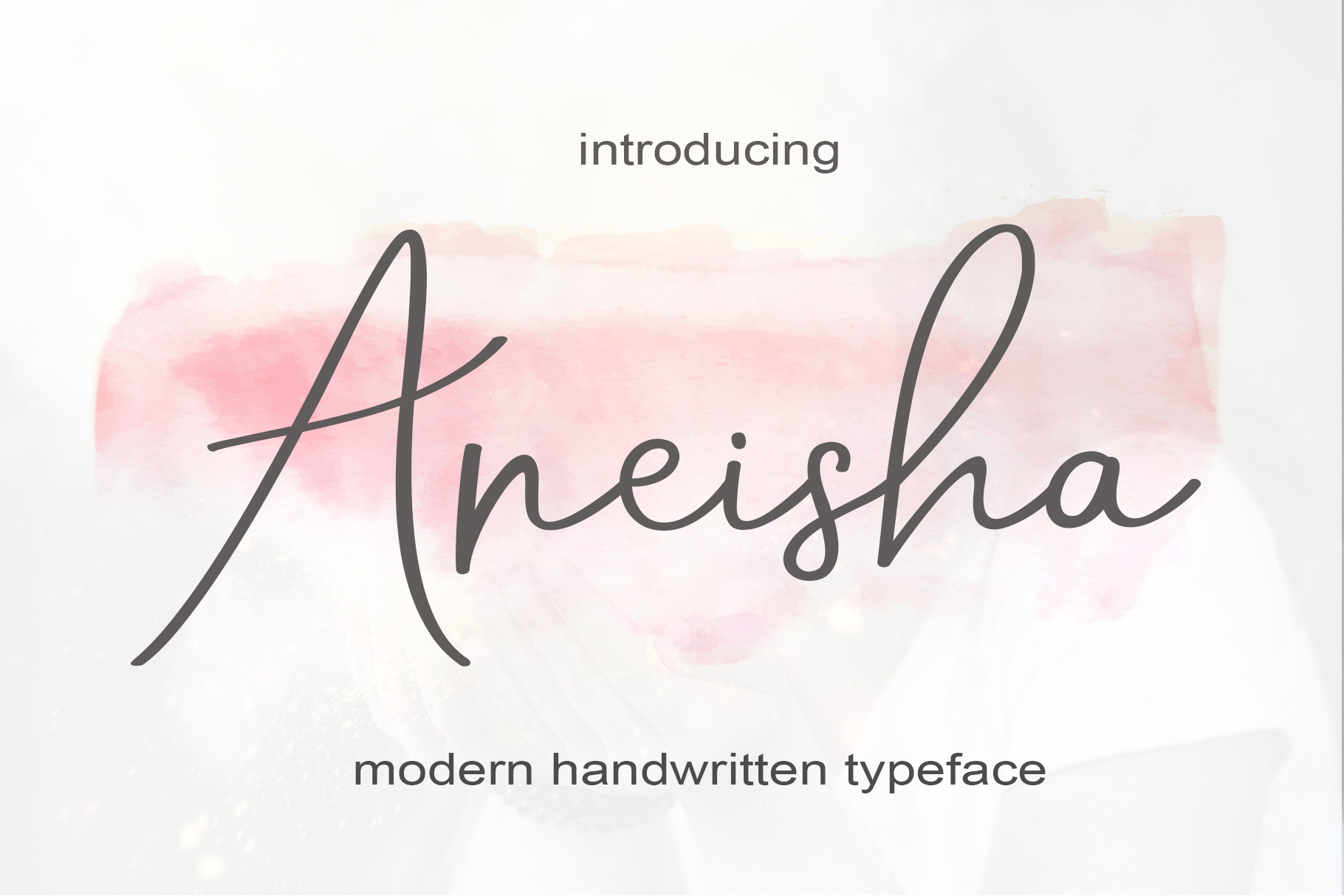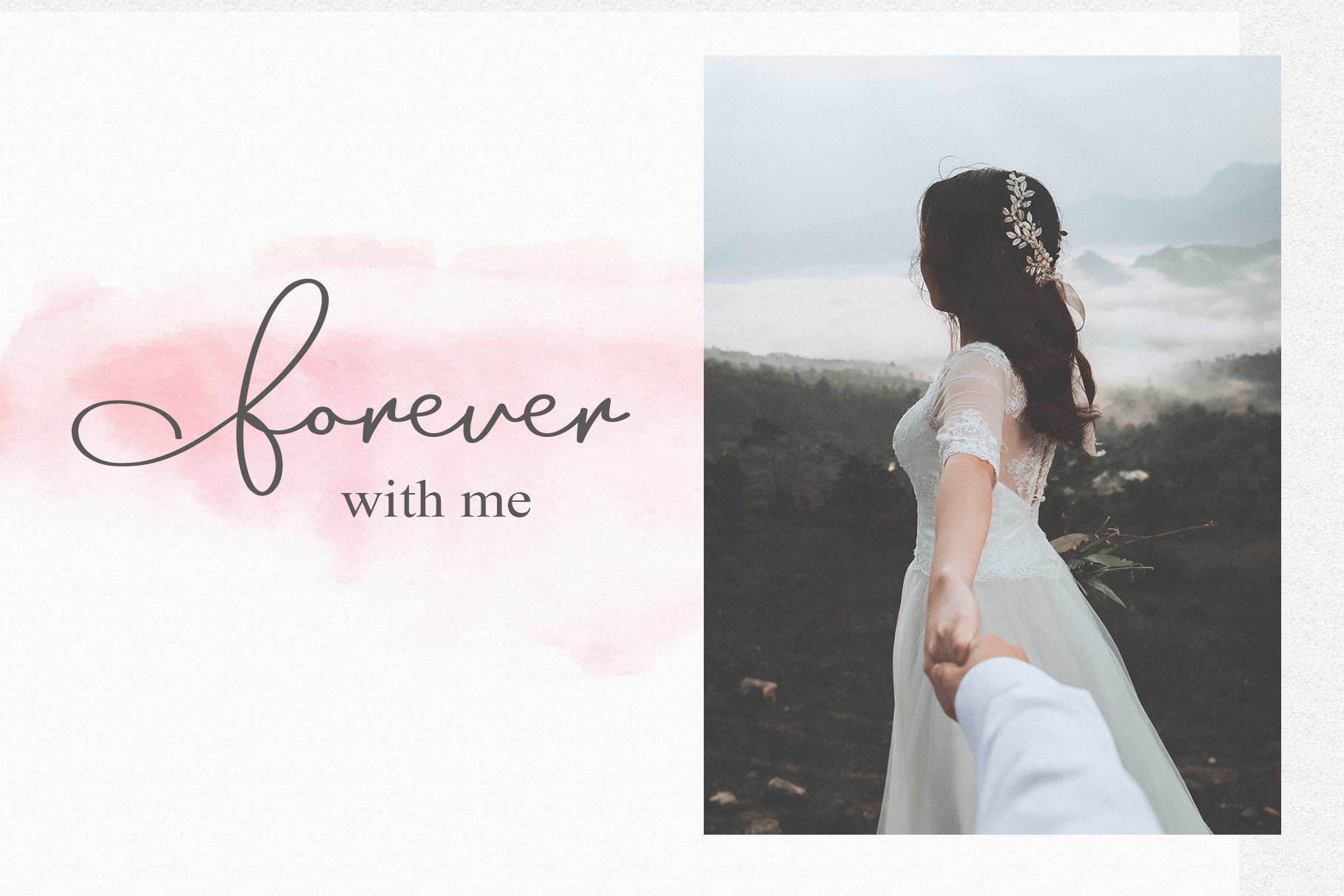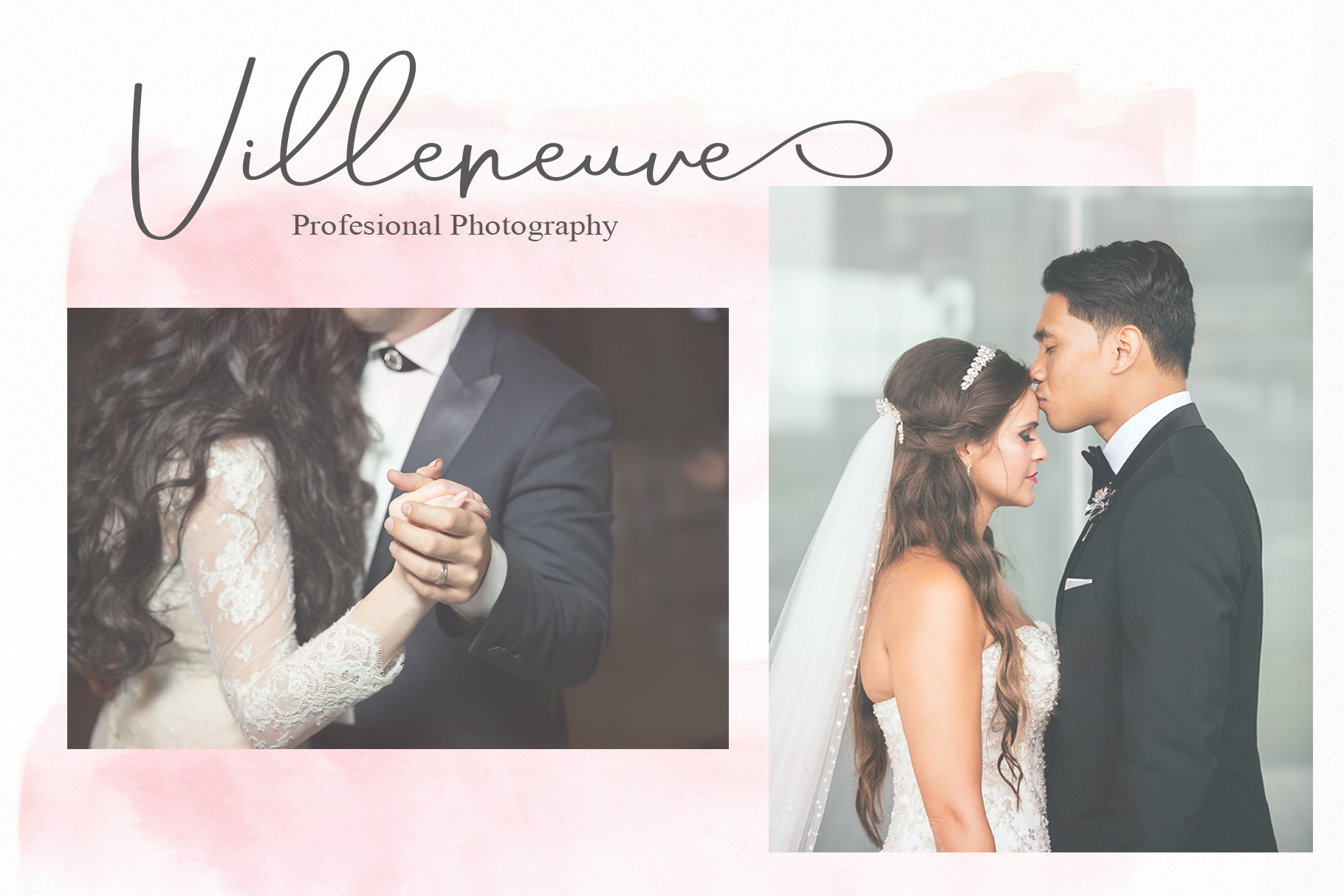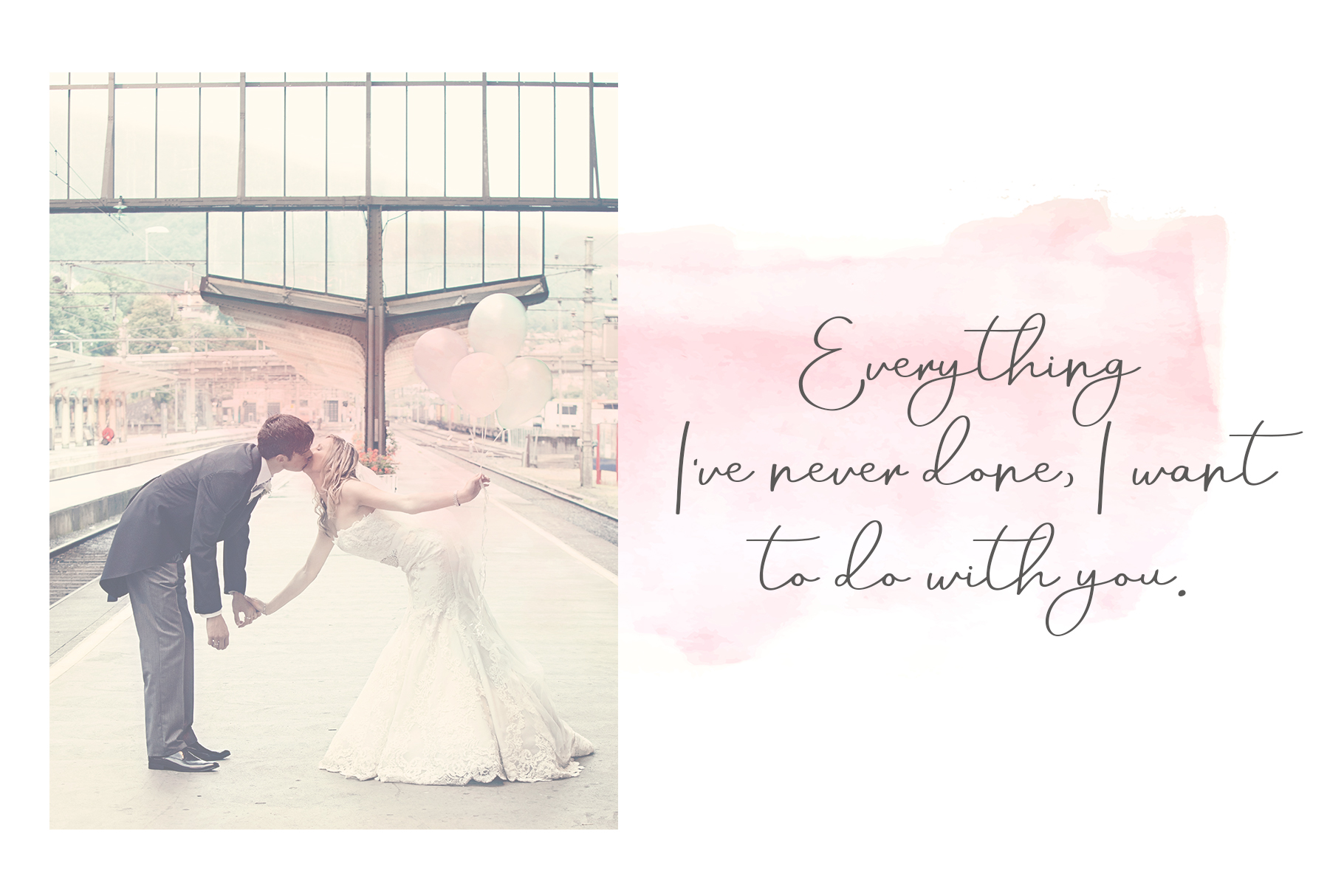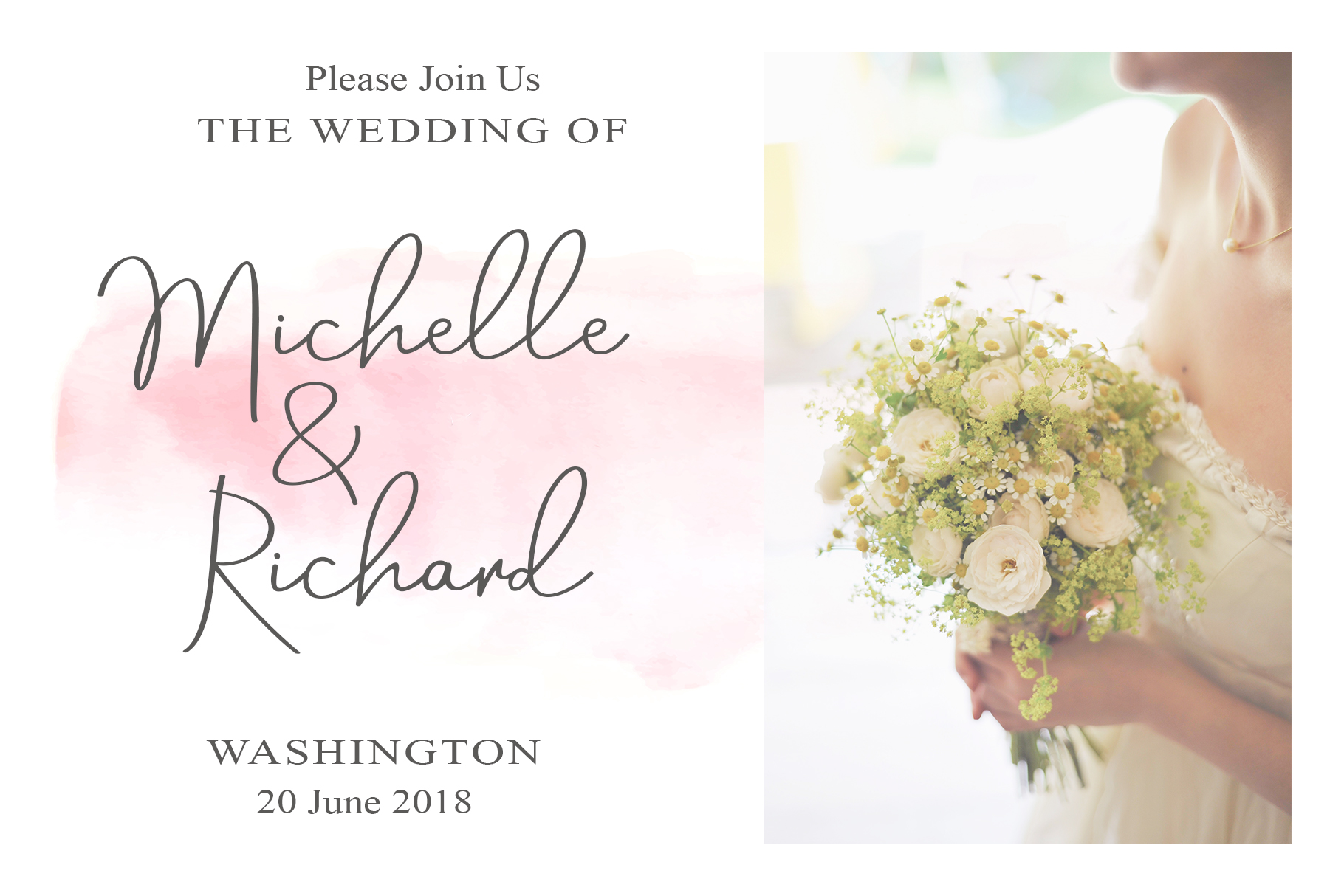
Aneisha Font
About Aneisha Font
Aneisha is a beautiful and modern script calligraphy font that exists in trendiness and sleekness. This font is perfect for a wide range of friendly and casually stunning designs, and can add a touch of modernity to all your work.